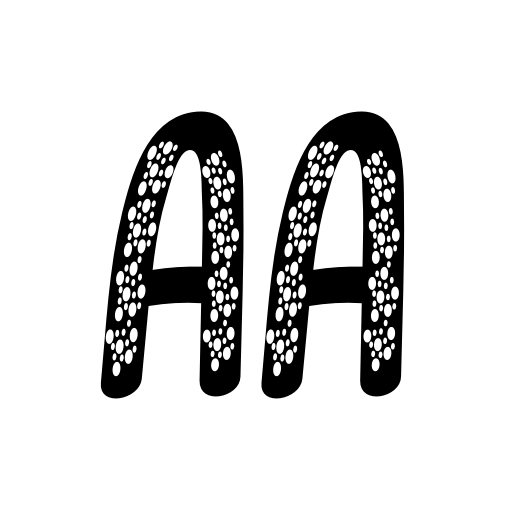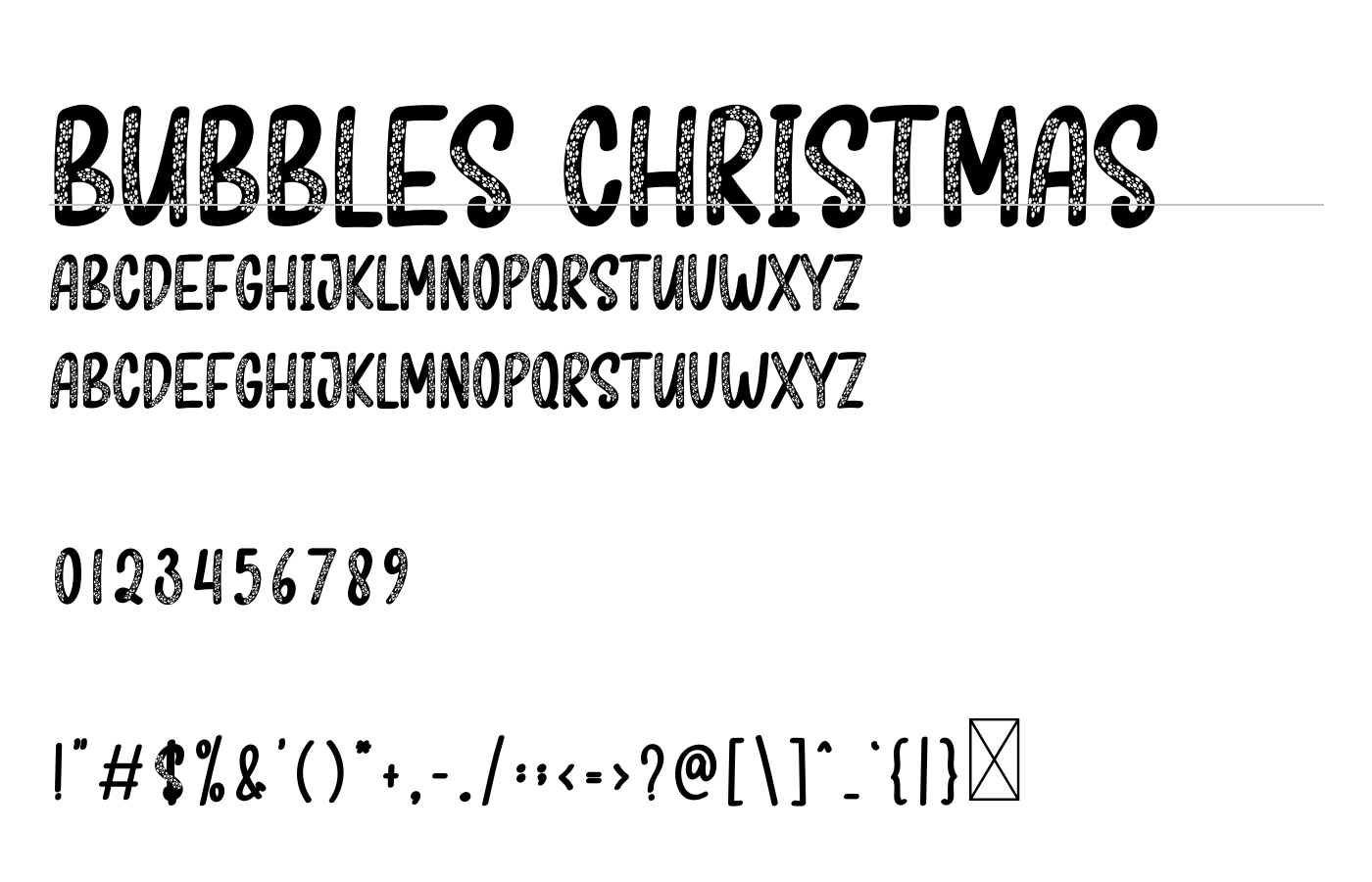
Bubbles Christmas is a playful, hand-drawn sans serif font that features a bubbly, textured style evoking festive cheer and warmth. Its tall, narrow letterforms with varying stroke textures and casual, uneven shapes make it ideal for holiday-themed designs, party invitations, and fun, informal branding. This font brings a joyful, whimsical spirit that works best for headlines and decorative uses where a lively, approachable look is desired.
Bubbles Christmas Font
About Bubbles Christmas Font